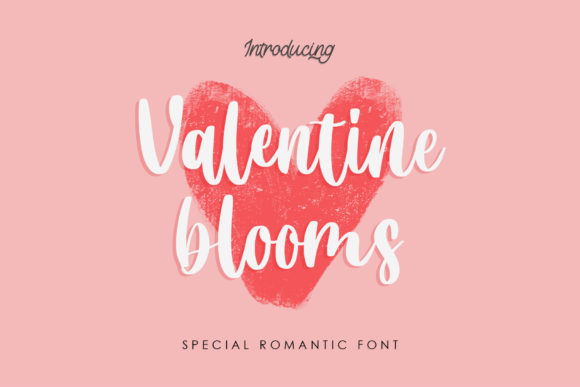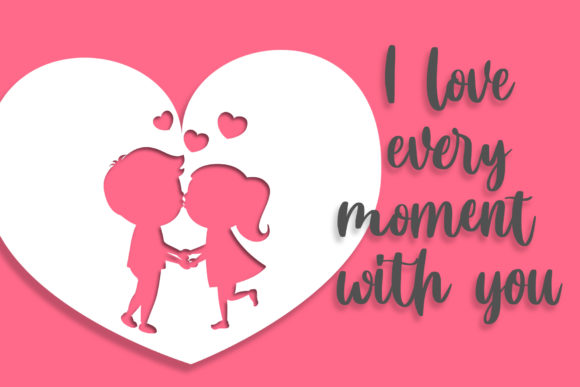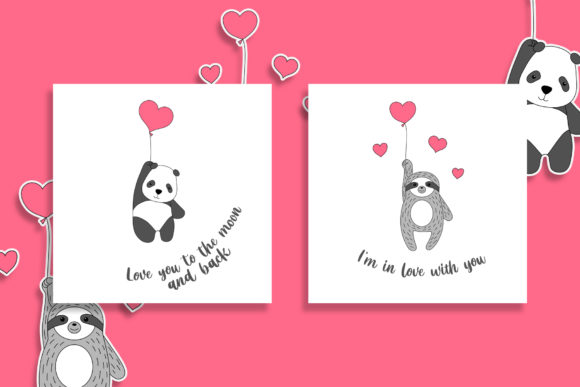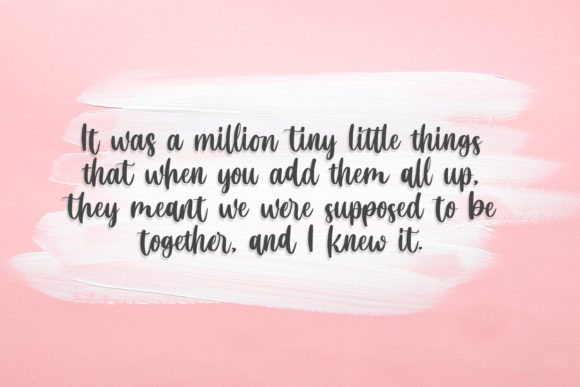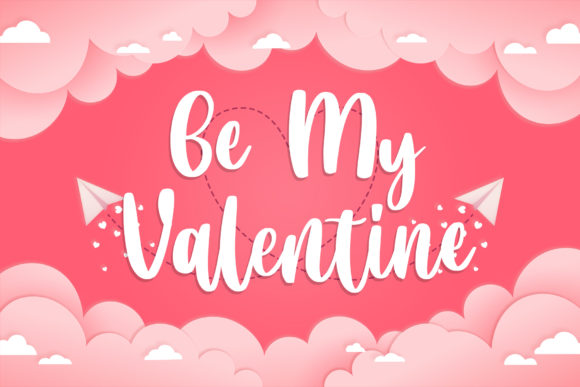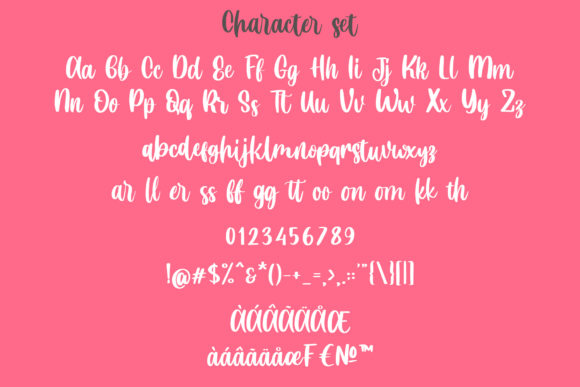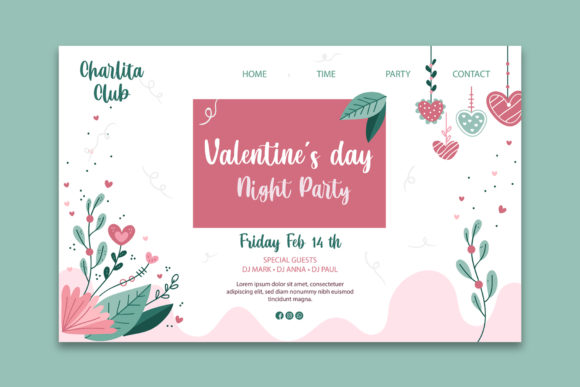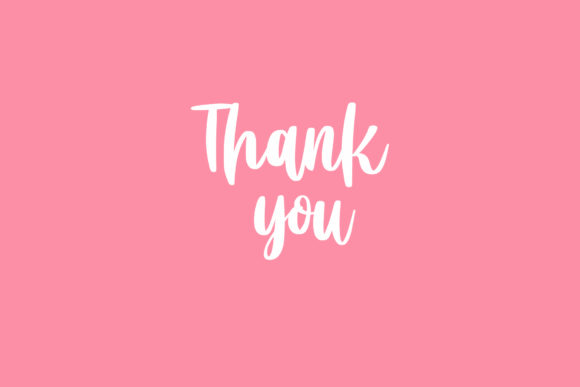
Valentine Blooms Font
About Valentine Blooms Font
Valentine Blooms sounds absolutely delightful! As a casual and smooth script font, it adds a playful and charming touch to your Valentine crafting ideas. With its effortless flow and unique character, Valentine Blooms helps your designs stand out and captures the essence of the season of love.
The casual and smooth nature of Valentine Blooms brings a relaxed and approachable feel to your designs. It’s perfect for adding a touch of whimsy and joy to your Valentine’s Day crafts, whether you’re creating cards, gift tags, love notes, or any other heartfelt creations. The effortless flow of the font adds a sense of movement and liveliness, making your designs visually captivating.
Valentine Blooms’s playful feel makes it a perfect choice for expressing love and affection in your Valentine’s Day projects. Its unique charm adds a touch of personality and warmth, making your designs feel more heartfelt and personal. Whether you’re crafting handmade cards for loved ones or creating digital designs to spread the love on social media, Valentine Blooms adds that extra touch of sweetness.
The PUA encoding of Valentine Blooms is a valuable feature that allows easy access to all the glyphs and swashes available in the font. This means you can effortlessly incorporate decorative elements, flourishes, and swashes to enhance the visual appeal of your designs. Whether you want to embellish lettering, add romantic flourishes, or create unique combinations of characters, the PUA encoding ensures seamless integration and creative freedom.
Embrace the versatility of Valentine Blooms and let your Valentine crafting ideas come to life. Whether you’re designing handmade cards, scrapbook pages, gift tags, or any other creative projects, Valentine Blooms will add a touch of playfulness and charm. Let the smooth and casual script font create standout designs that convey love and affection with a unique twist.
In summary, Valentine Blooms is a casual and smooth script font that brings a playful and charming feel to your Valentine crafting ideas. With its effortless flow and unique character, it captures the spirit of love and adds a touch of whimsy to your designs. Access all the glyphs and swashes with ease through the PUA encoding, and let your creativity bloom with Valentine Blooms.